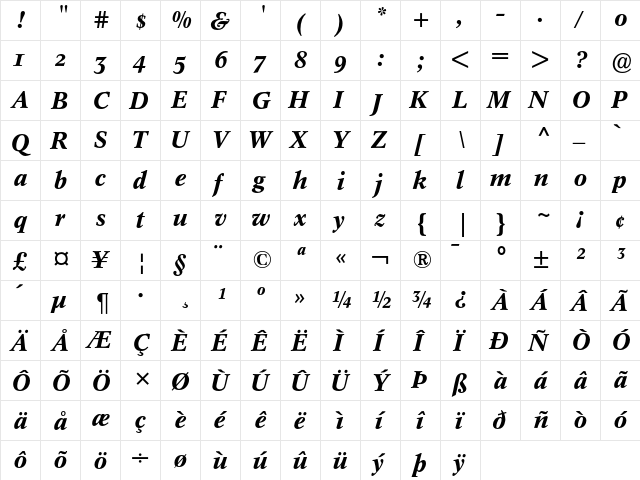
Concorde BE Medium Italic with Oldstyle Figures
Design Context for Concorde BE Typeface
Concorde BE brings classic typographic sensibility to the table — its serifs and measured letterforms reflect centuries of print heritage. Its italic angle brings a sense of urgency and motion to the letterforms.
Pro Tip: Use Concorde BE for editorial body copy and considered headline work. Pair with a neutral sans for UI elements or captions to create a classic hierarchy.